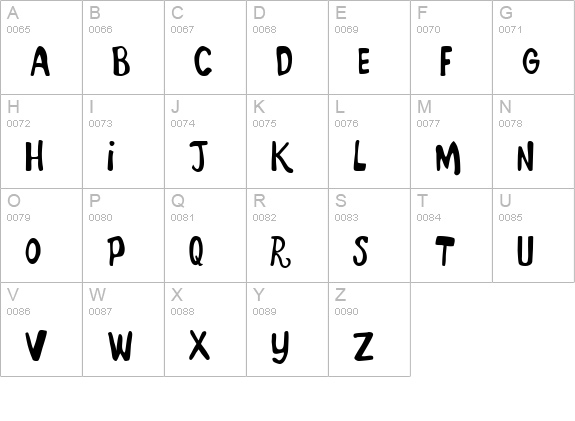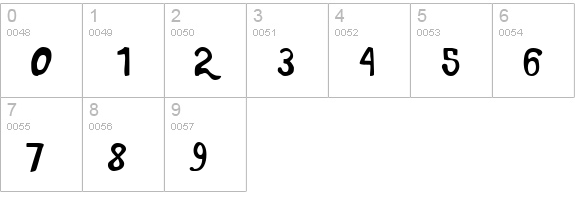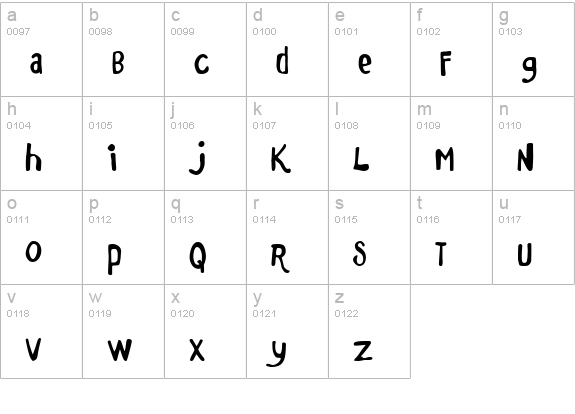
Marker Monkey FW Font Details
Marker Monkey FW is a playful and energetic font that brings a touch of whimsy and creativity to any design project. With its bold and slightly messy appearance, this font is perfect for adding a fun and casual vibe to your designs. Each character has a handwritten feel, adding a personal and authentic touch to your work. Marker Monkey FW is not only visually appealing, but it is also incredibly versatile. Whether you're designing a poster, a logo, or even a social media graphic, this font will make your text stand out and grab attention. It is especially great for projects targeting younger audiences or those that require a lighthearted and carefree aesthetic. The best part is that Marker Monkey FW is absolutely free! You can easily download it from FontsMarket.com, where a wide range of high-quality fonts are available for free. With just a few clicks, you can start using this delightful font in your projects without any restrictions or limitations. So why wait? Go ahead and give your designs a playful twist with Marker Monkey FW today!